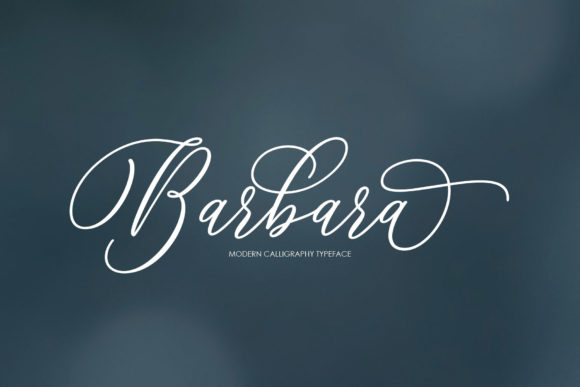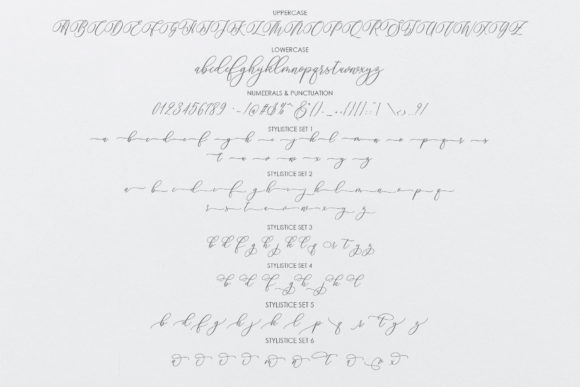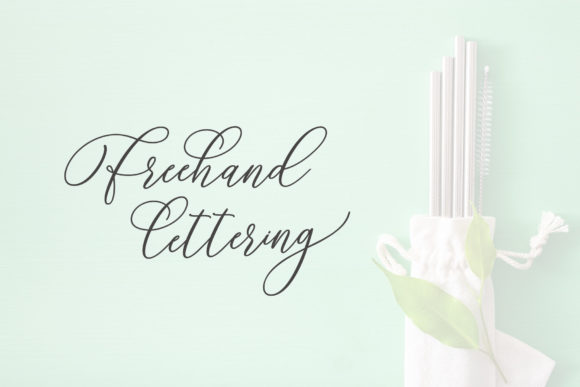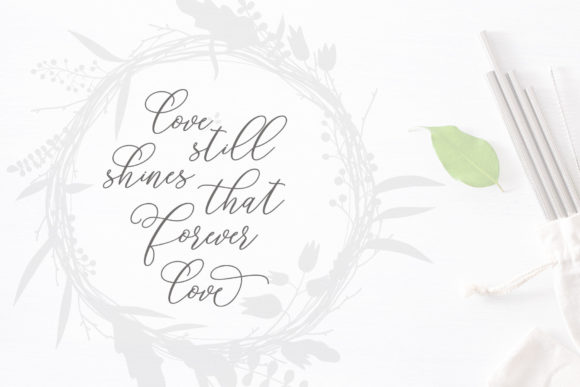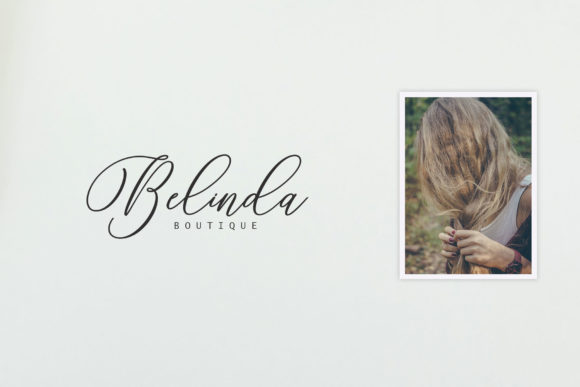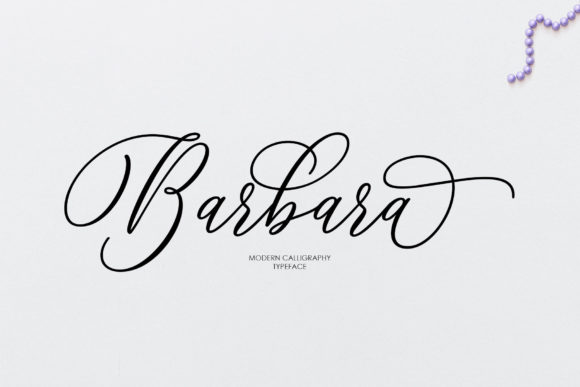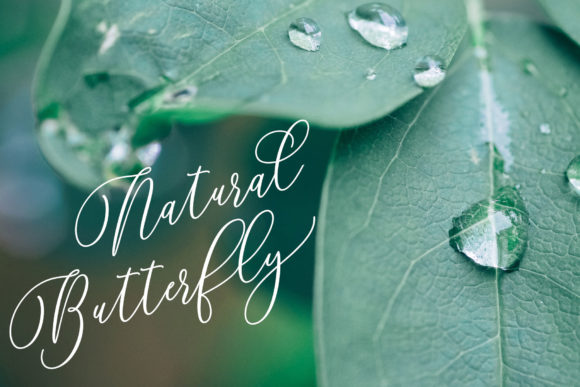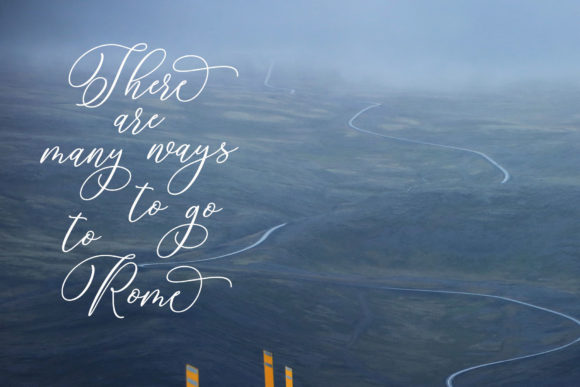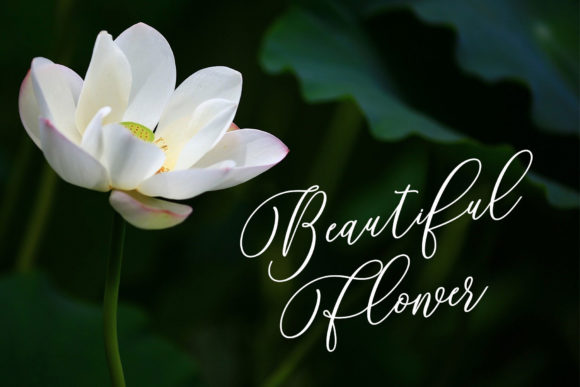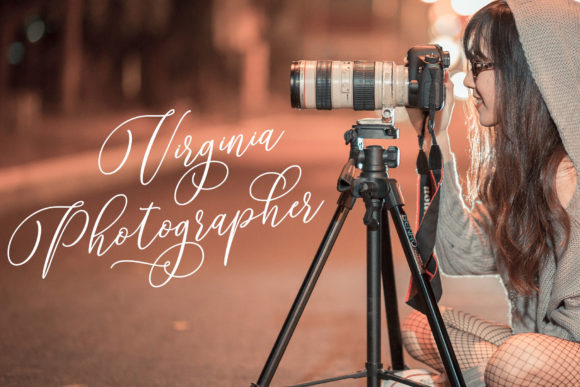
Barbara Script Font
About Barbara Script Font
Barbara is a splendid script font featuring stylish characters that flow beautifully into each other. Exquisite and natural, this typeface is perfect for creations that need a personal note.